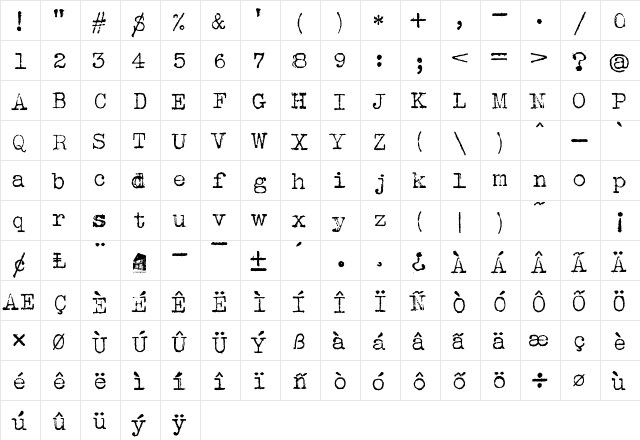
USIS 1949 Regular
| Designer | Lukas Krakora |
Design Context for USIS 1949 Typeface
USIS 1949 takes a measured approach to typography — its balanced proportions and neutral character make it a reliable workhorse for both digital and print work.